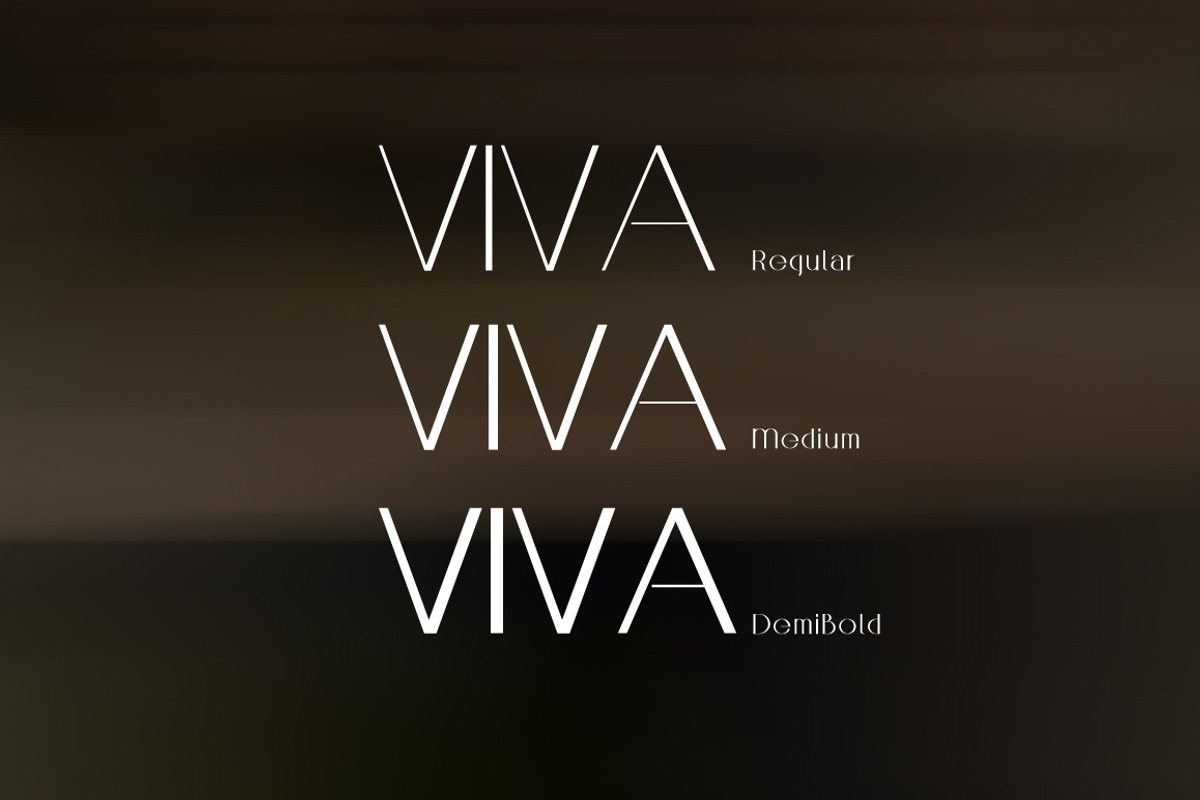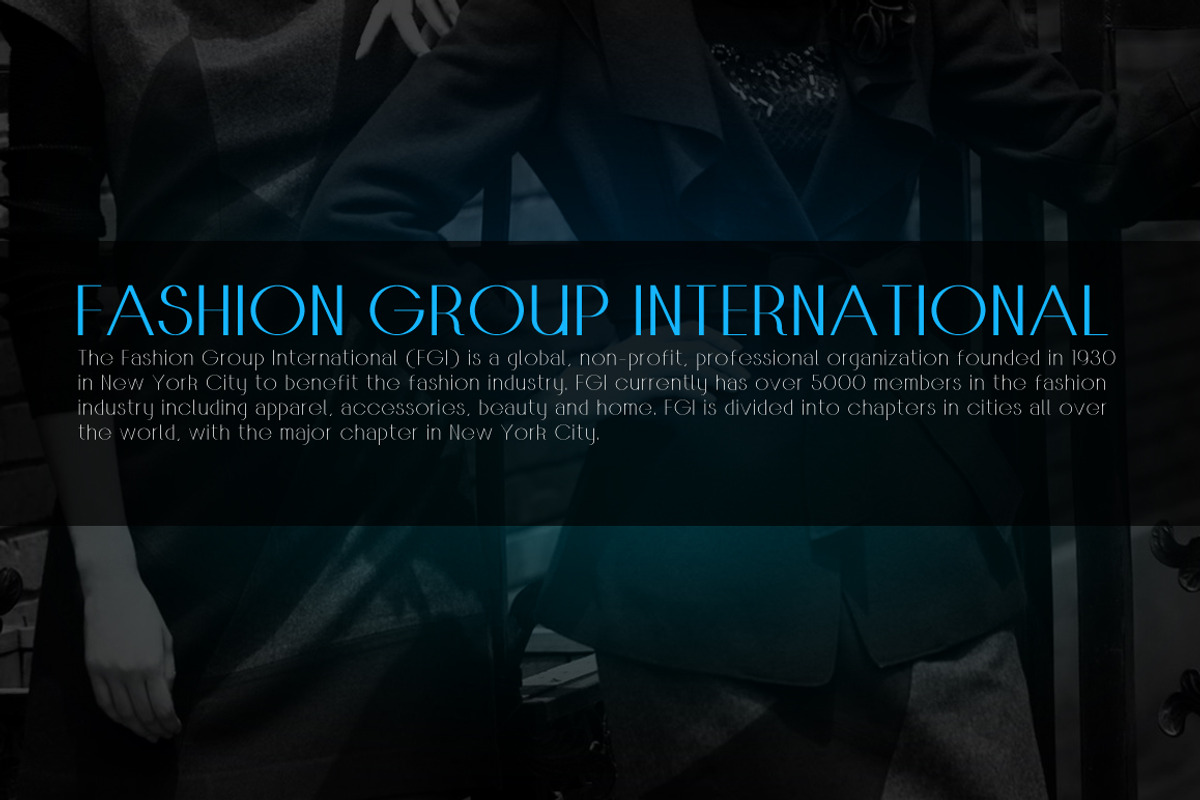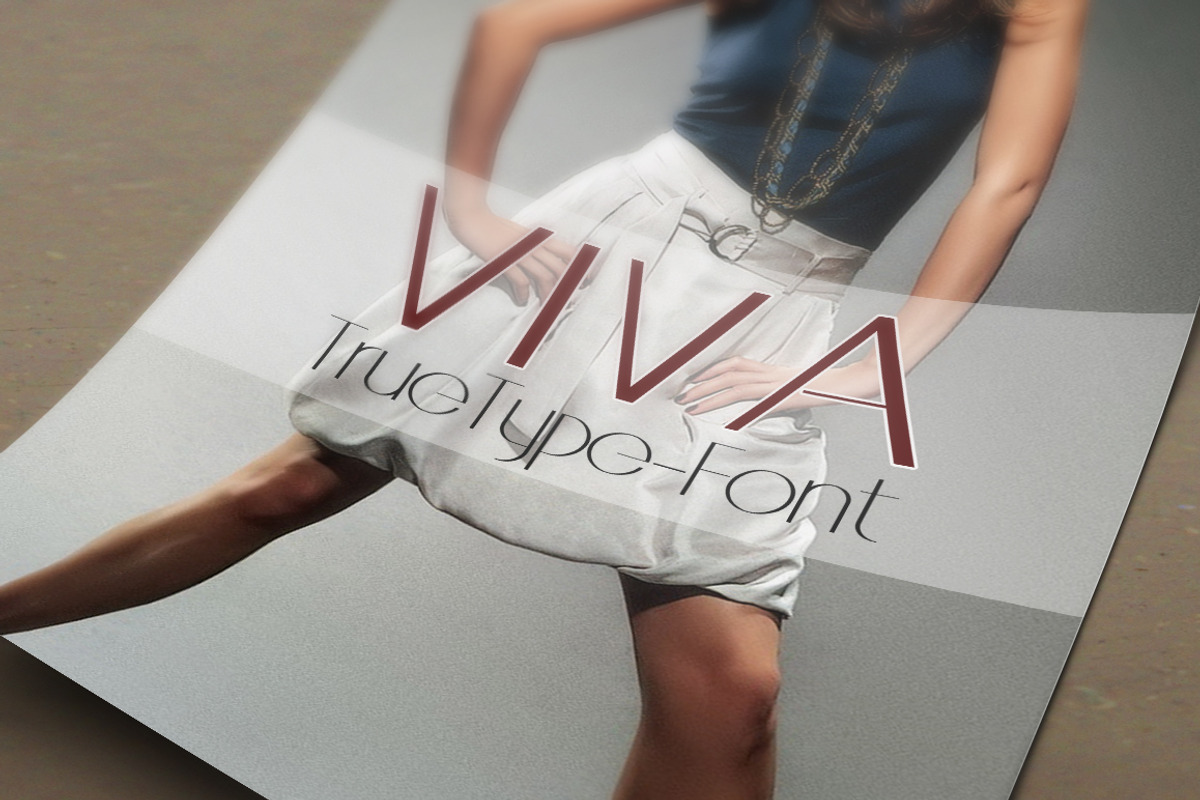
VINA TrueType Font
VINA TrueType Font by alphadesign is a font selected for branding, posters, packaging, typography.
- VINA TrueType Font is a fashionable, elegant font, suitable for advertising, fashion design, fashion show, contains 245 glyphs.
- VINA Regular
- VINA Medium
- VINA DemiBold
VINA TrueType Font by alphadesign fits naturally into Branding, posters, packaging, typography.